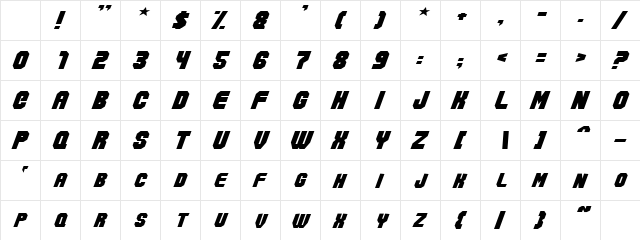
Somtan Yosa Regular Free Font
Somtan Yosa Regular
Design Context for Somtan Yosa
Somtan Yosa is a composed and adaptable typeface that performs quietly and consistently across a wide range of design contexts.
Pro Tip: Use Somtan Yosa in both headline and body roles to test its range before committing to a single application.